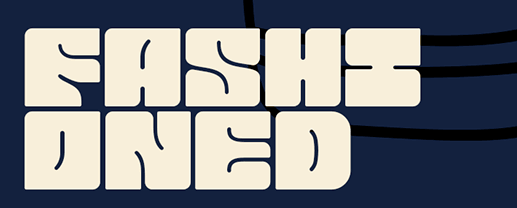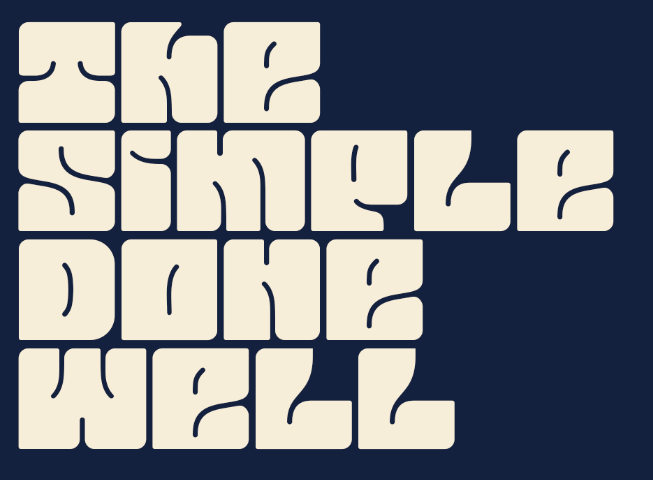
Is it a typeface or custom lettering - font from bar menu in Canada.
Found this typeface a while ago in someones portfolio, it was used as part of a branding exercise for a bar in Canada but I don't think the bar exists anymore. I'm not sure if it is a typeface or if it's custom lettering, but there seemed to be quite a lot of headlines in the typeface so it lends itself to being a font that exists somewhere... hopefully someone can identify it. Thanks!
There are many typefaces inspired by this Secession style of lettering (and/or by its psychedelic revival).
However they usually seem to have slightly more decorated counters and/or narrower proportions.
I was unable to find a match, but for similar vibes you could check Libido and the “related typefaces” listed.